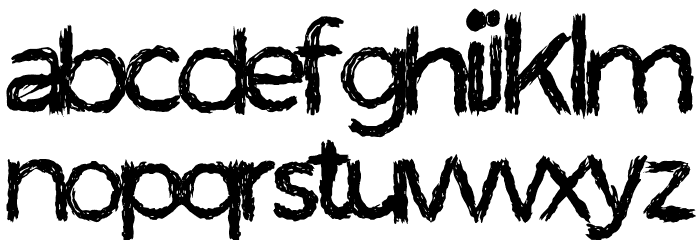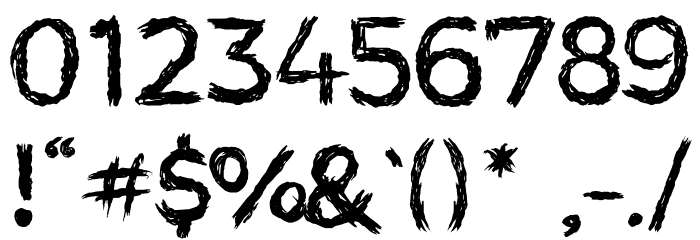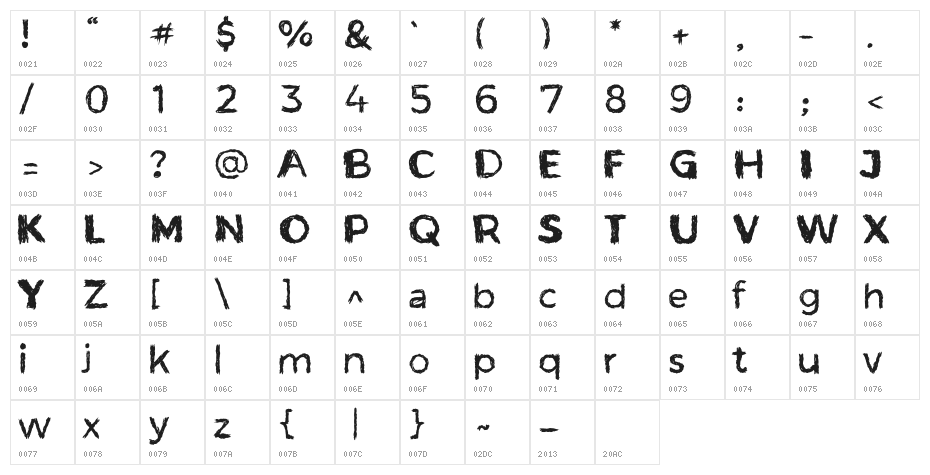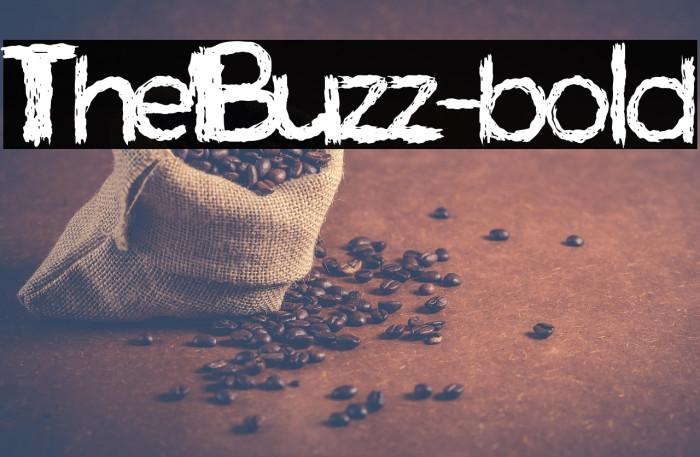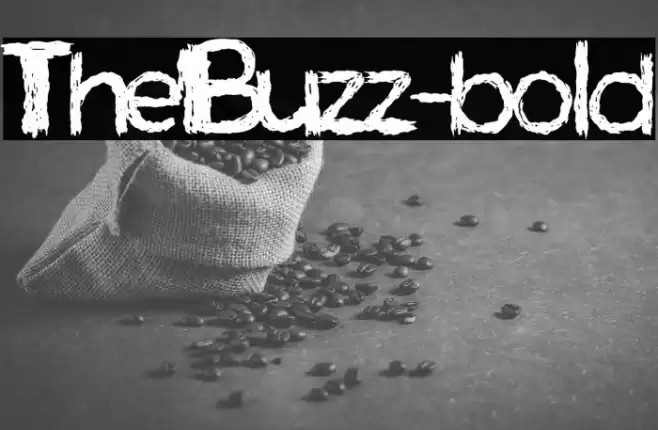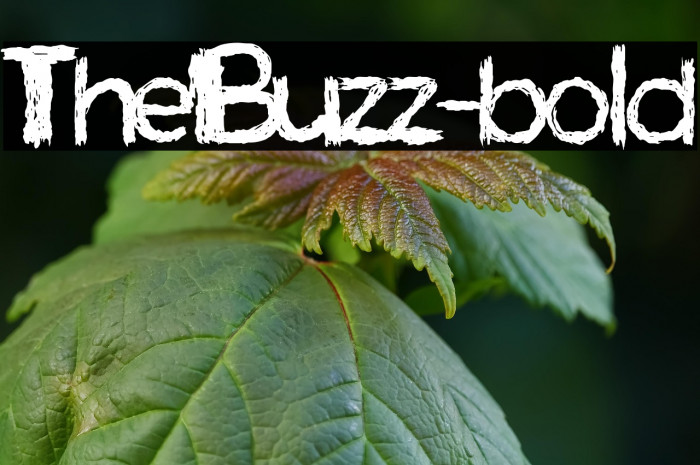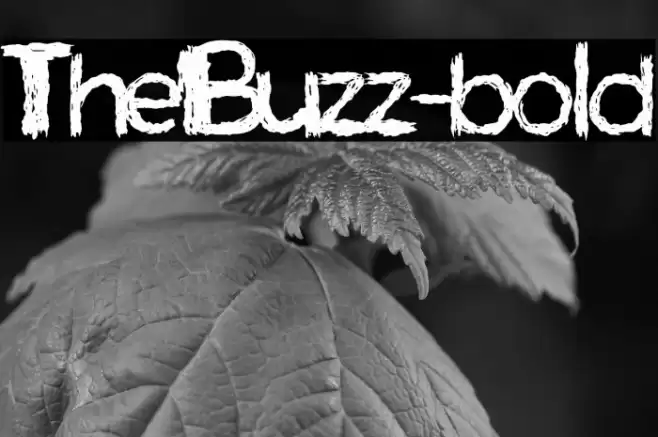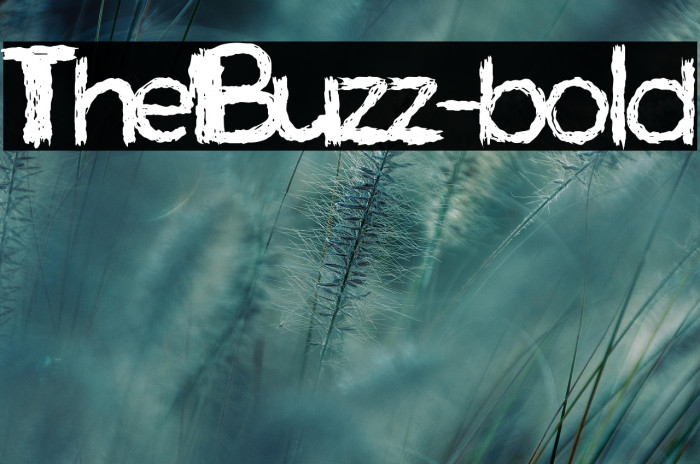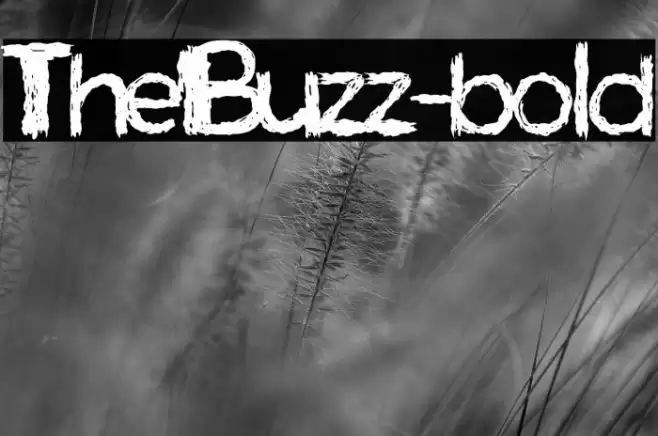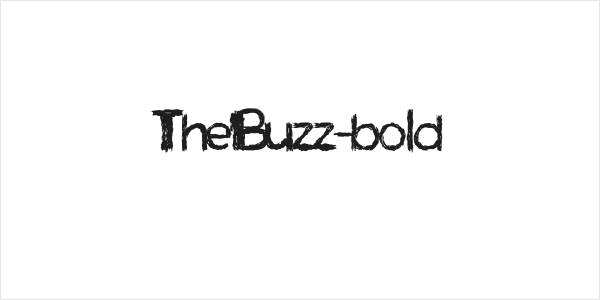
TheBuzz-bold Font
This font features a bold, textured style that mimics a hand-drawn or brush-stroke effect. The characters are irregular and dynamic, giving a sense of movement and energy. The uppercase and lowercase letters maintain a consistent height, while the numbers and special characters follow the same rugged aesthetic. The overall appearance is rough and edgy, making it suitable for designs that require a bold statement. The texture adds depth and character, making it stand out in any project.
A bold, textured font with a hand-drawn, brush-stroke effect.
- Proposed Projects: Ideal for posters, album covers, graffiti art, and any design that needs a bold, artistic touch.